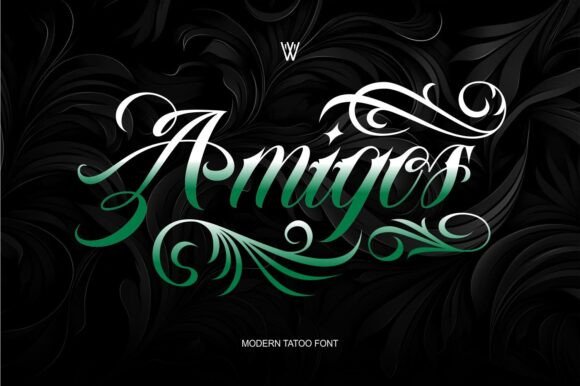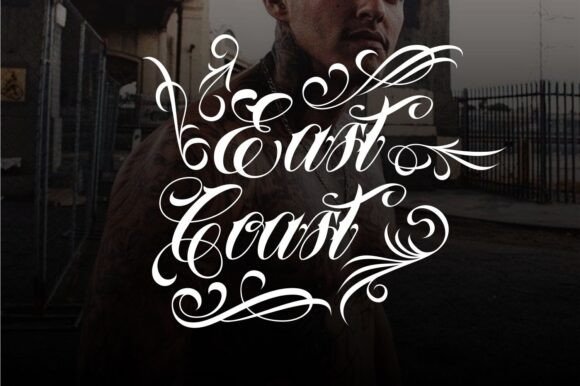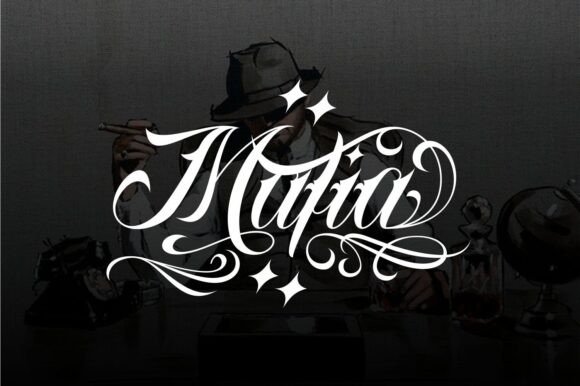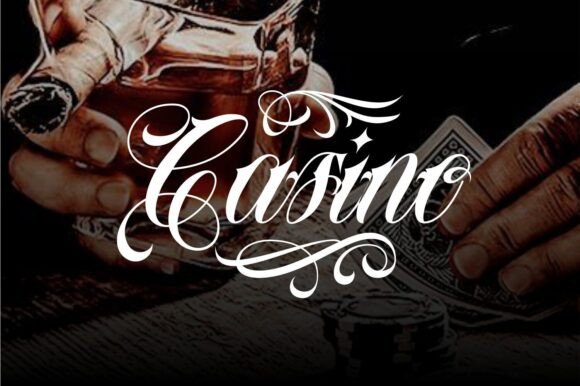
Amigos Font: Unique Tattoo Font for Authentic Logo Design
About the Amigos Font
The wait is over! The incredible Amigos Font is now available for your design toolkit. Elevate your design projects with our Amigos Chicano Tattoo Font, meticulously crafted for artists and designers seeking authentic tattoo-inspired typography. This collection features a diverse range of blackletter calligraphy fonts, perfect for custom tattoo designs, logos. Compatible with Procreate and Photoshop, these fonts offer seamless integration into your creative workflow. Each font is designed to provide versatility and uniqueness, ensuring your designs stand out.
Amigos Font Usage Examples
Amigos Font Example